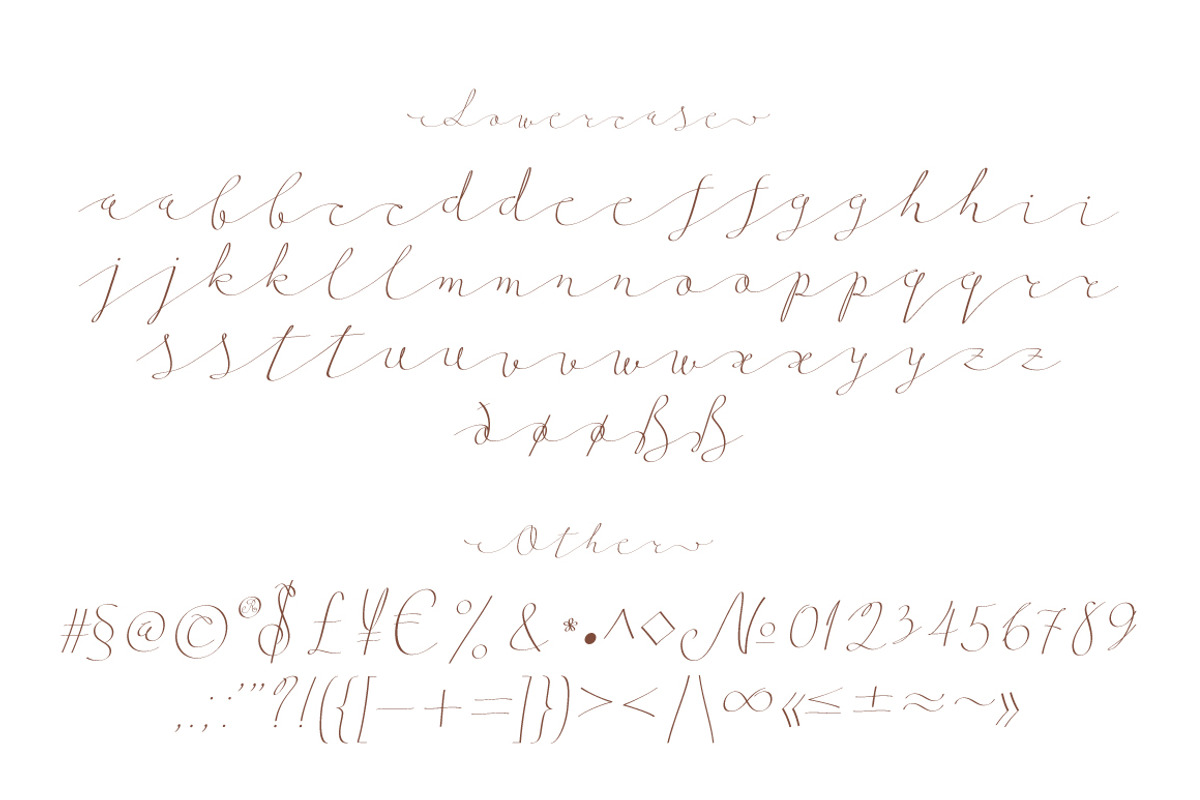
Follow script
Follow your design needs with Follow script. It’s a hand lettered typeface which also offers cute swashes for beginning and ending letters as well as elegant dividers. Each letter (both uppercase, lowercase and diacritics) has stylistic alternates giving the font a true authenticity. Some letters also have initial forms. The font is perfect for quotes, wedding branding, headings, social media texts, blogs and much more.
Swashes are very easy to use – just put a number 0-9 before/or after a letter which you want to be combined with the swash in Adobe Illustrator CS, Adobe Indesign and CorelDraw. Really very easy!
Dividers work as ligatures: just type dot + any number in between 1-6 and it gives you variations of dividers.
Stylistic alternates and initial forms are also controlled by switching on/off OpenType feature as well as being accessible through glyphs panel in Adobe apps.